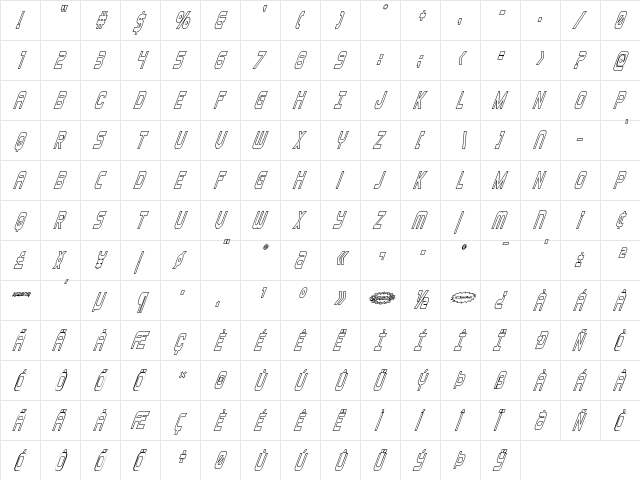
Blizzard Shaft Outline SuperIt Regular
Design Context for Blizzard Shaft Outline SuperIt Typeface
Blizzard Shaft Outline SuperIt is built around its visual character rather than neutral utility — its distinctive forms are designed to make an impression at display sizes.
Font Pairing: Pair with a clean neutral sans-serif for body copy to let Blizzard Shaft Outline SuperIt's character lead without overwhelming the composition.
Pro Tip: Treat Blizzard Shaft Outline SuperIt as the centrepiece of your typographic hierarchy. One strong heading set in a decorative face can carry an entire layout.